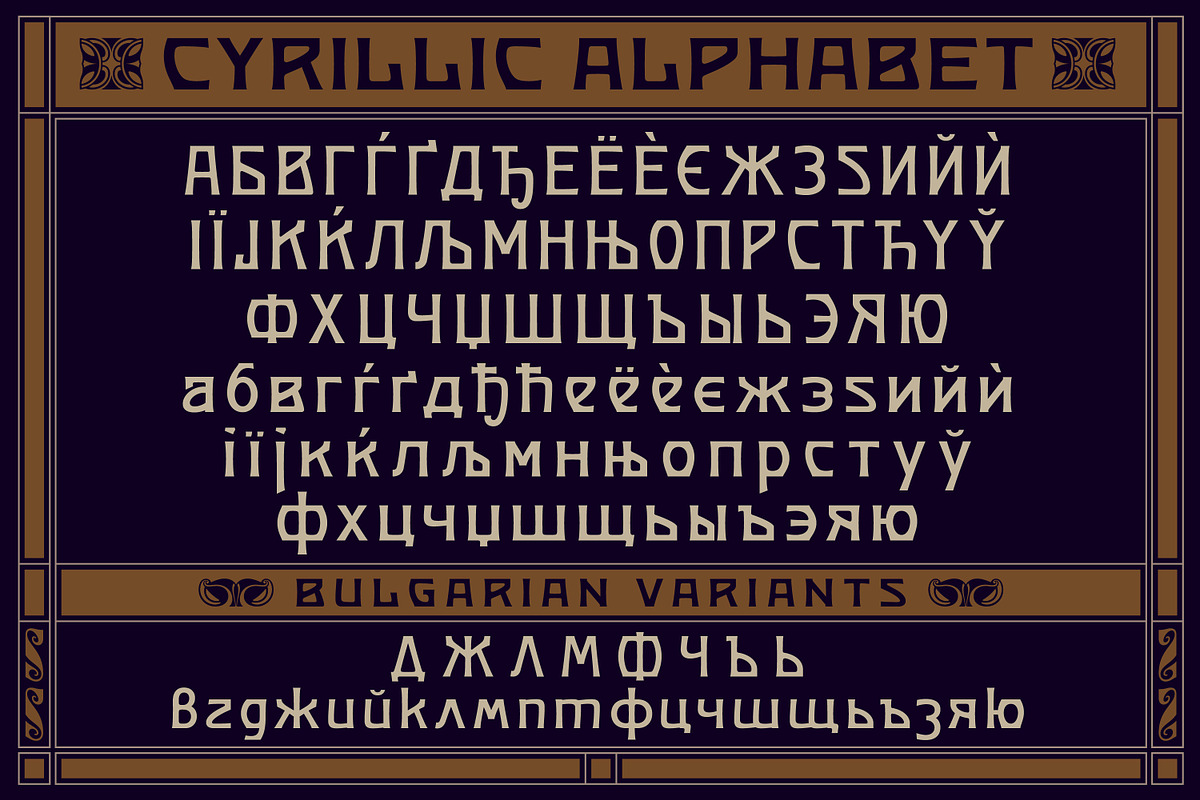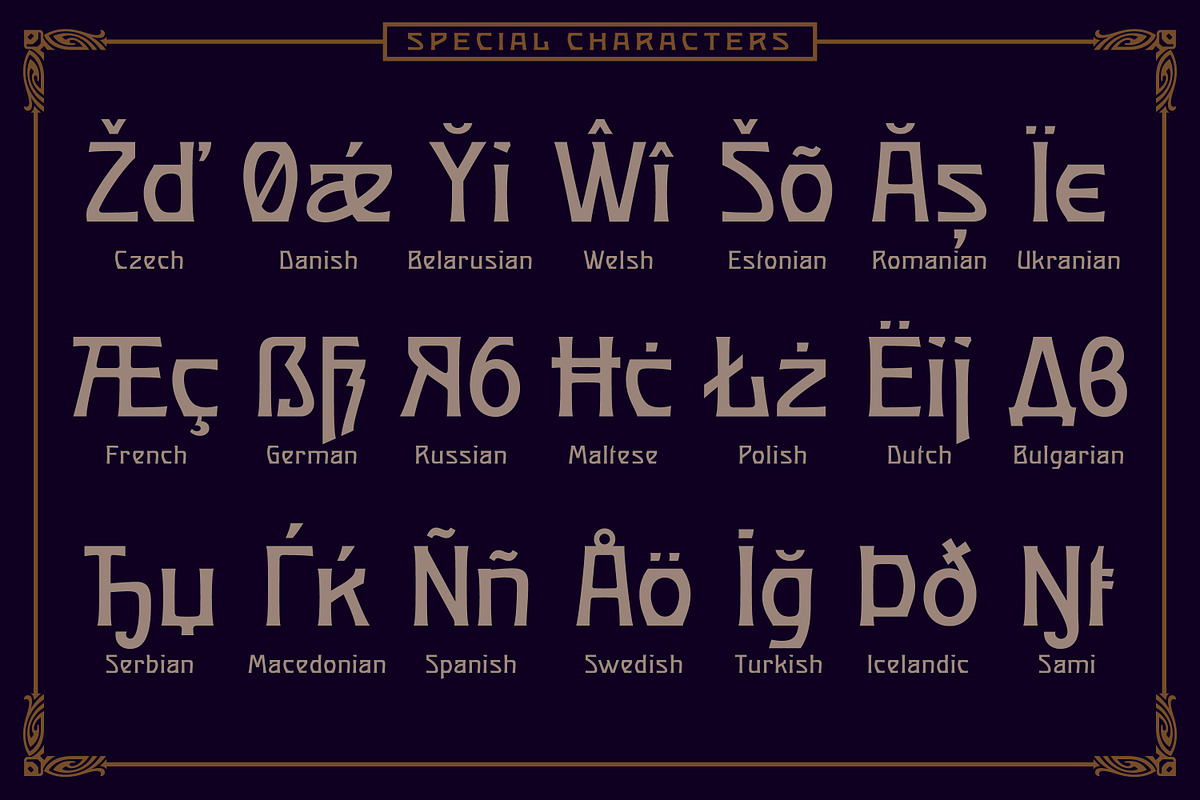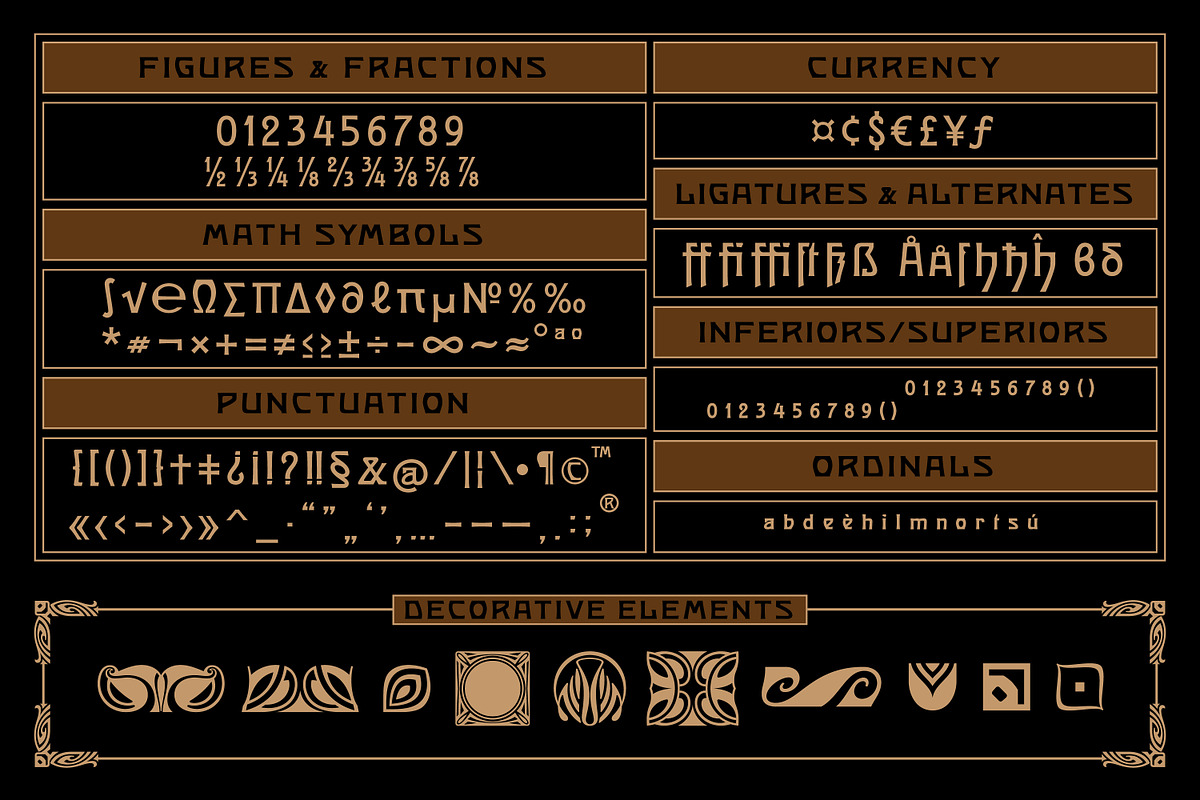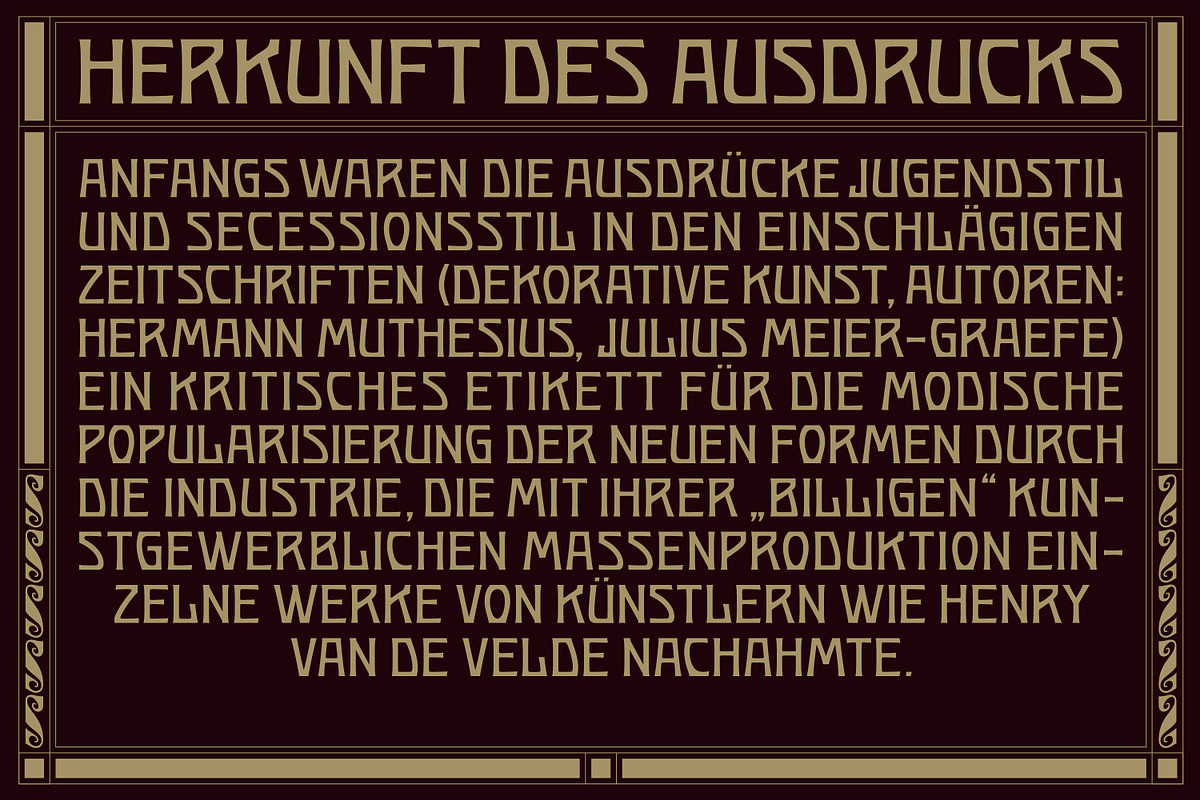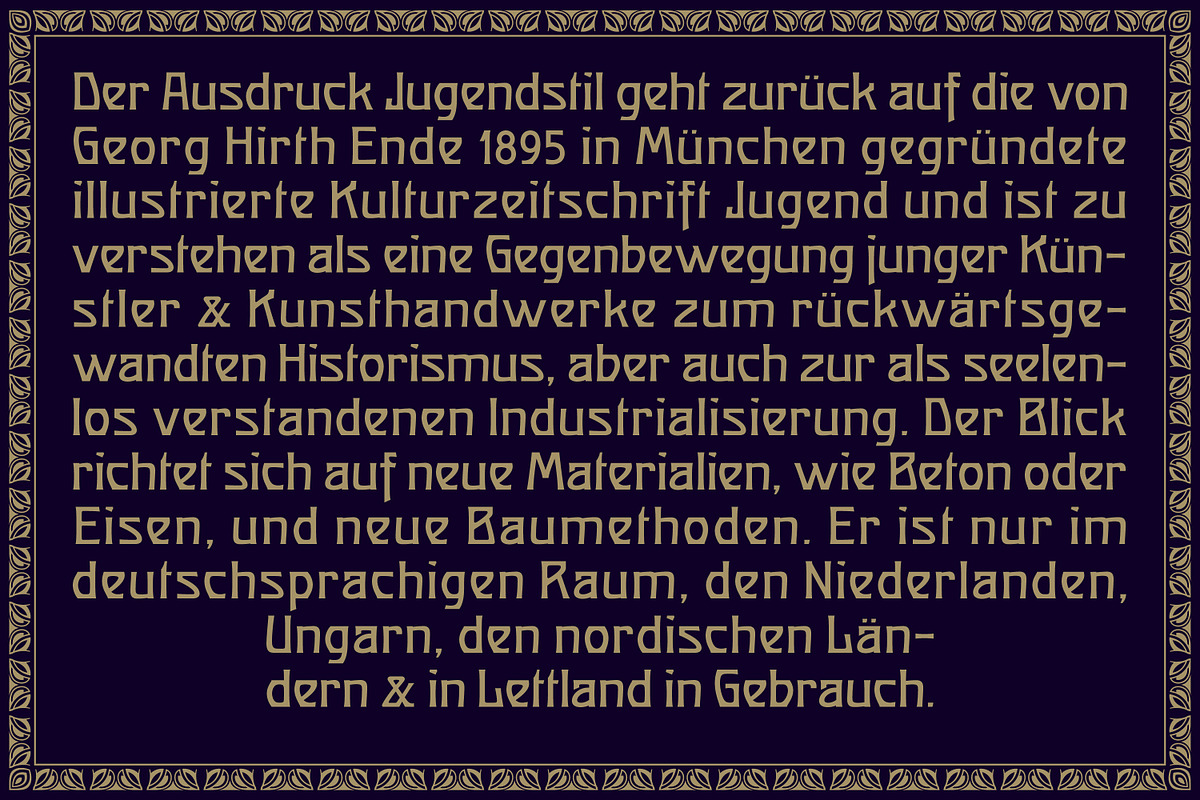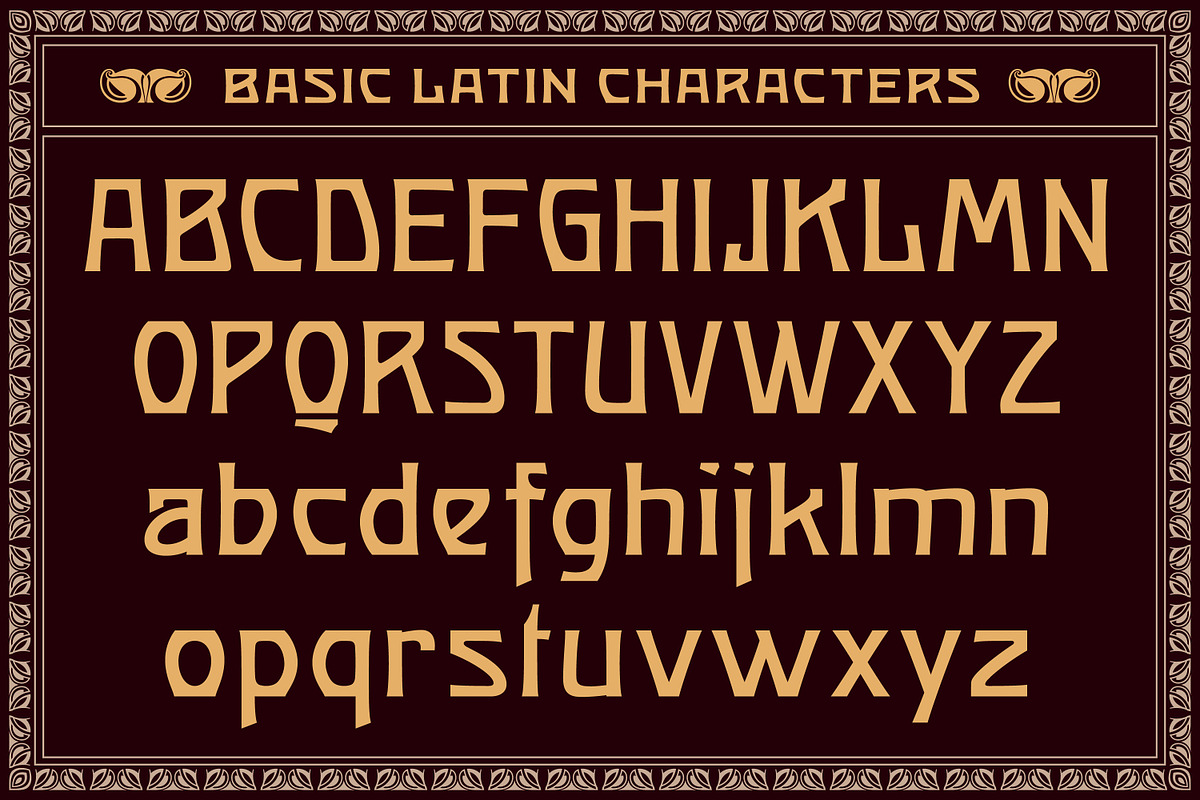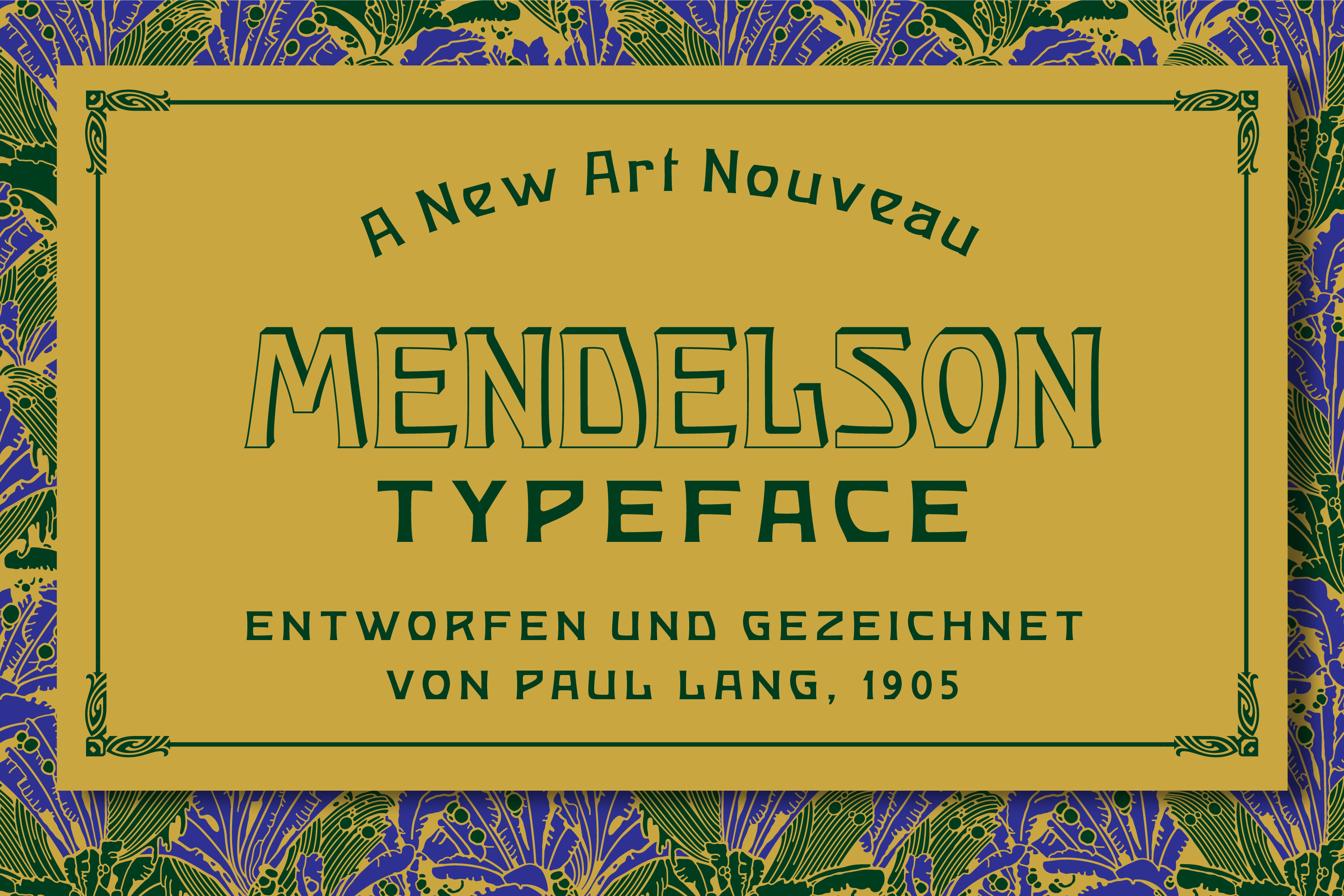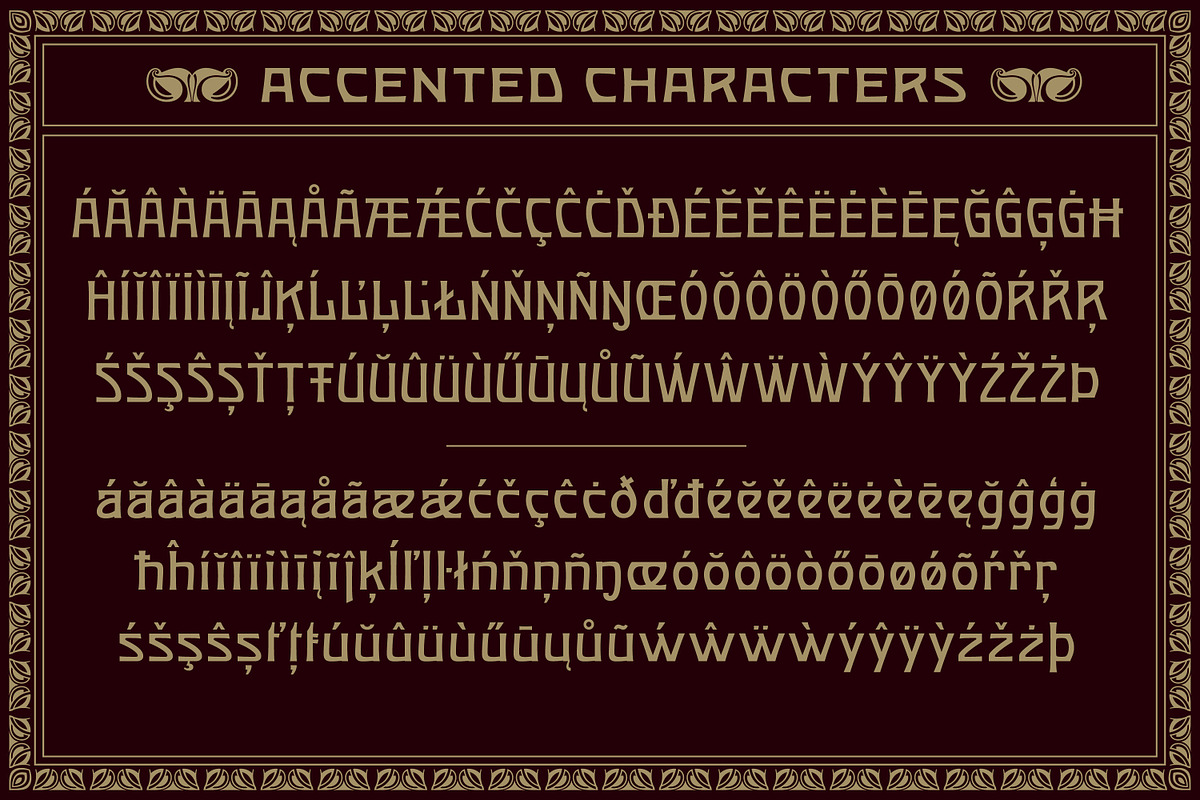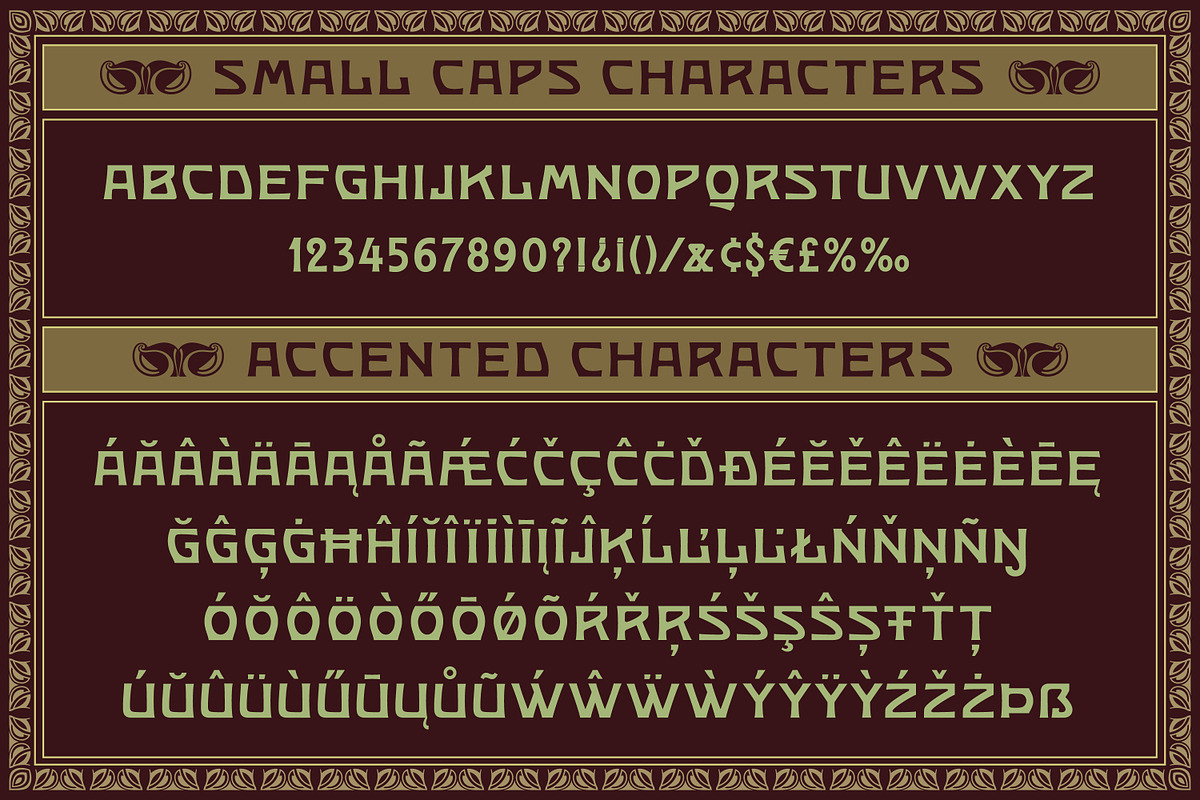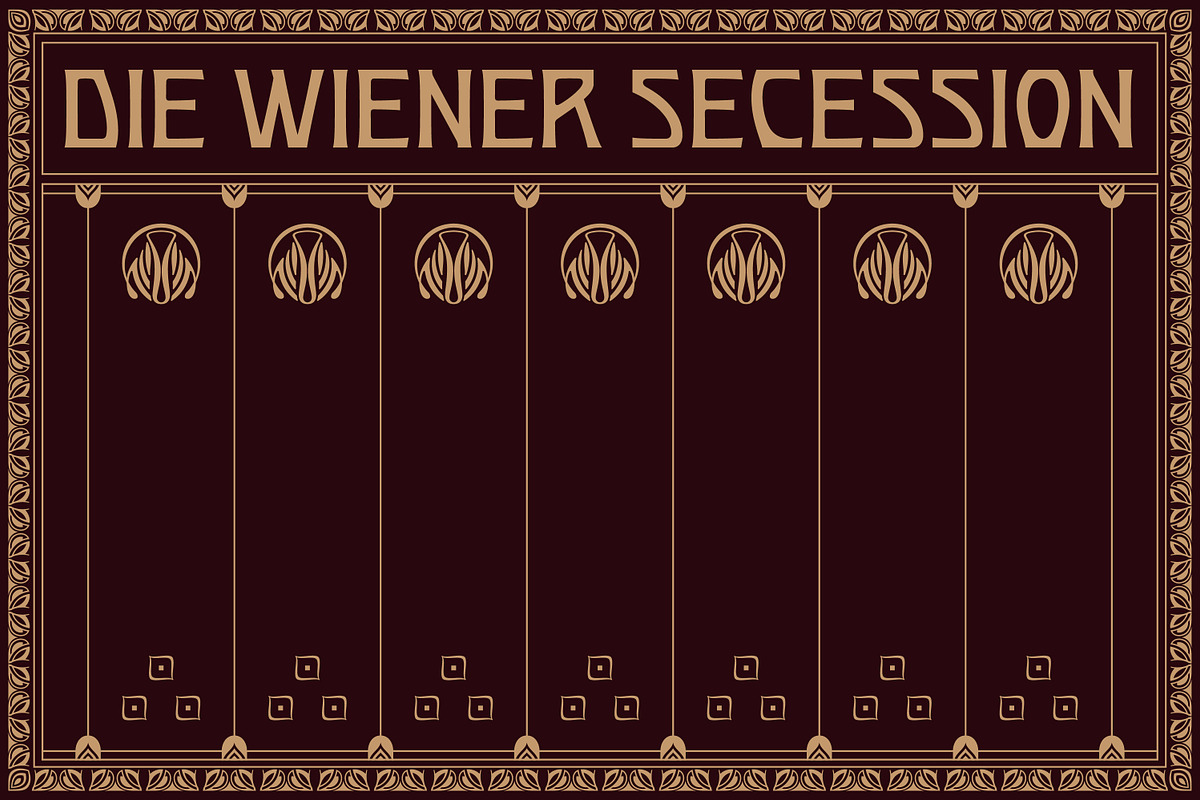
Mendelson typeface
Mendelson is an art Nouveau inspired typeface which is based on a design by Paul Lang (1877-1937). Originally the typeface was named Langschrift (meaning long type) and was released by the Flinsch foundry in Frankfurt am Main in 1905.
With its rigorous verticals and squarish shapes Mendelson works best as a display typeface. Low contrasts and balanced proportions make this typeface both bold and elegant. It is best used when centered in symmetrical settings.